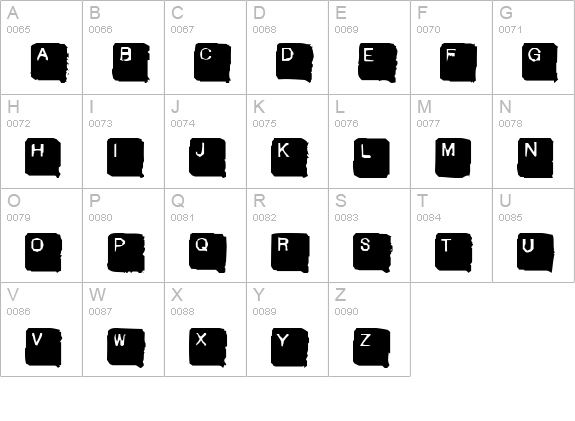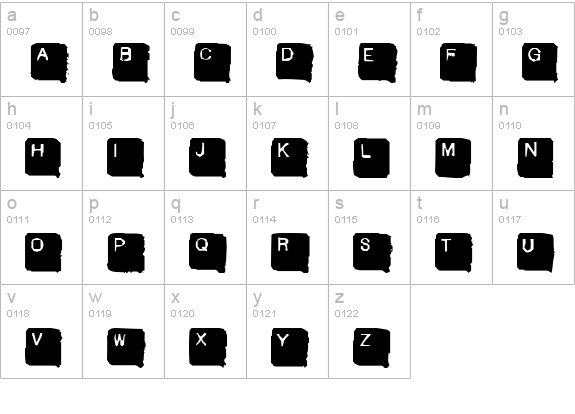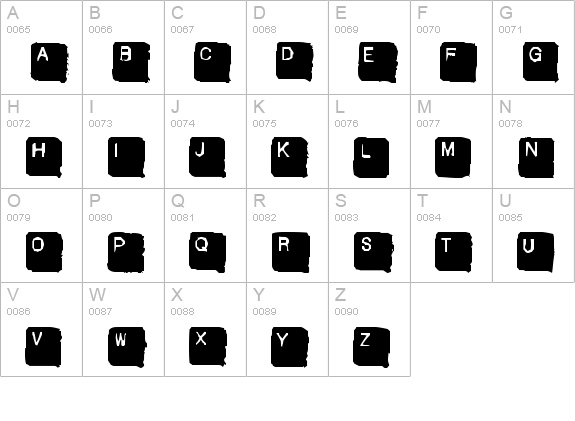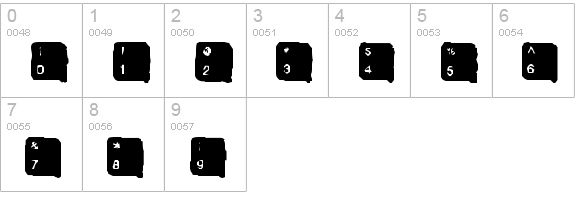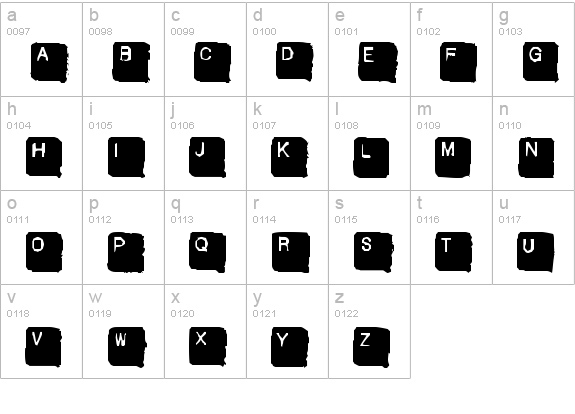
SkanHead Lite Font Details
SkanHead Lite font is a modern and eye-catching typeface that exudes a bold and edgy vibe. Its unique design combines the sleekness of contemporary typography with a touch of street-inspired flair, making it perfect for projects that require a strong and urban aesthetic. This font features clean lines and sharp angles, giving it a distinct and powerful presence on any medium. Whether used for posters, logos, headlines, or even social media graphics, SkanHead Lite effortlessly captures attention and leaves a lasting impression. What makes SkanHead Lite font even more appealing is that it is freely available to download at FontsMarket.com. This means that you can easily access this incredible font without any cost, making it an excellent choice for designers on a budget or anyone looking to add a touch of modernity to their creative projects. With its versatile nature and bold character, SkanHead Lite font is sure to elevate your designs to new heights. So don't miss out on this opportunity to enhance your visual communication with a typeface that combines style, impact, and affordability. Download SkanHead Lite today and unlock a world of design possibilities.